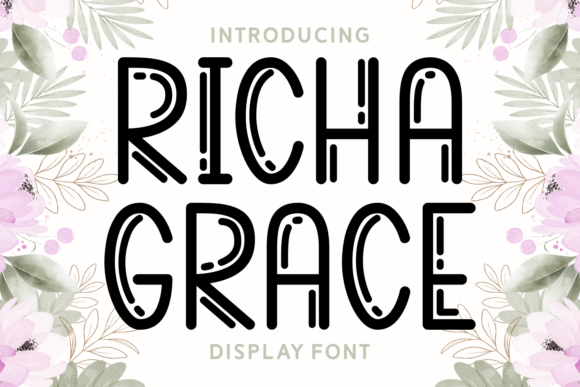
Hold on to your hats, font enthusiasts! Introducing Richa Grace Font, the crown jewel of modern typography. This exquisite display font will transform your designs into captivating masterpieces.
Crafted by the skilled artisans at Creative Fabrica Fonts, Richa Grace is a symphony of elegance and functionality. Its meticulously designed curves and bold strokes dance across the page, creating a visual feast that will leave you breathless.
Indulge in the limitless possibilities of this font. Imagine your brand logo adorned with the sophisticated charm of Richa Grace, exuding an air of confidence and style. Let your packaging designs blossom with its captivating presence, attracting customers with its alluring aesthetic.
Dive into the world of magazine spreads and elevate your words with the eloquence of Richa Grace. Its versatility extends beyond mere words, as it seamlessly intertwines with labels and cards, imbuing them with an unforgettable touch.
Whether you're a seasoned graphic designer or simply seeking to add a touch of magic to your personal projects, Richa Grace Font is your ultimate companion. Its timeless beauty and undeniable charm will effortlessly transform your designs, leaving a lasting impression on all who encounter them.